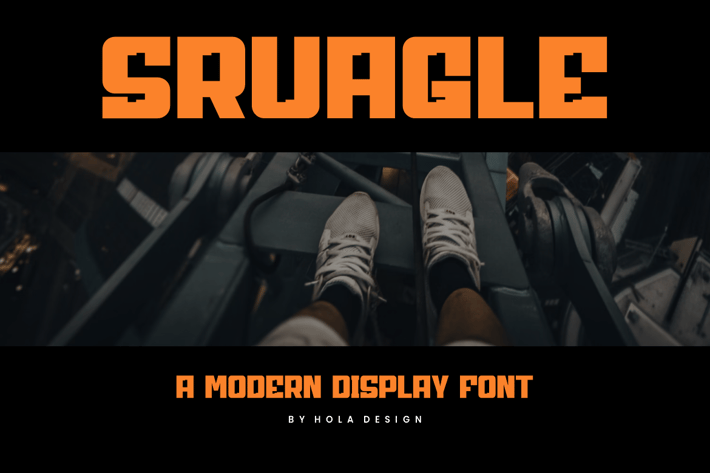
Sruagle Font
Sruagle Font Font is unique . Ready to use for your design like labeling, movie sceen, poster, movie title, gigs, album covers, logos, and much more.